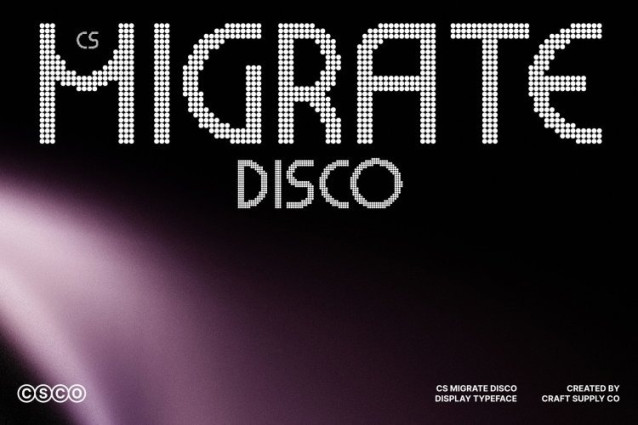
CS Migrate Disco Font
CS Migrate Disco Font – This takes the precise, Bauhaus-inspired construction of and infuses it with the playful, sparkling energy of a disco atmosphere. Each geometric letter is accented with subtle dot textures, radiant highlights, or dynamic reflective patterns, evoking the shimmer of disco lights across a dance floor. The font maintains its clean, modular structure while gaining a lively, celebratory personality perfect for cheerful designs.
Structured Yet Vibrant
The strict geometric forms and modular rhythm remain intact, ensuring clarity and modernity. However, playful disco embellishments dots, sparkles, and rhythmic accents introduce movement and flair, making text feel energetic and visually dynamic. This combination creates a perfect balance between Bauhaus precision and disco fun.
Eye-Catching and Fun
This is readable, and stylish, with an approachable sparkle that draws attention. Its structured yet vibrant style makes it ideal for posters, event graphics, music promotions, or branding projects where energy, glamour, and excitement need to shine.
Perfect for Creative and Festive Projects
From retro-inspired party posters to modern branding with a twist, this font adapts beautifully to any display context. Each character carries a sense of rhythm and liveliness, turning classic Bauhaus geometry into a joyful, disco-ready design. Every word dances, sparkles, and celebrates with style